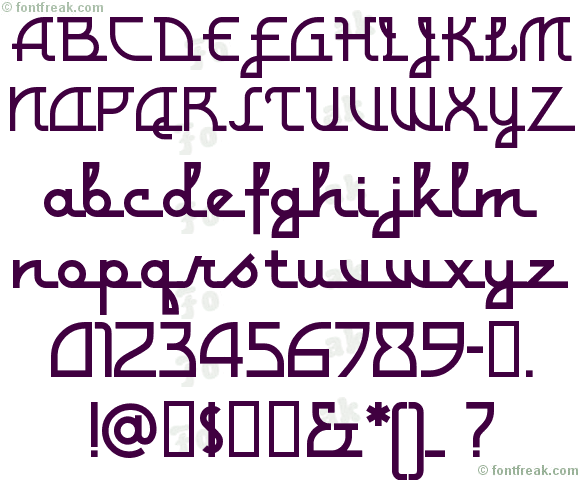
About Monterey Popsicle
Monterey Popsicle, designed by Nick Curtis in 2002, is a captivating display font that embodies a playful and whimsical character, perfect for various creative applications. As a decorative typeface, it features unique strokes that evoke a sense of fun and nostalgia. The font showcases a medium stroke weight with an engaging contrast that draws attention while remaining legible. Its rounded edges and quirky letterforms add a friendly touch, making it suitable for projects that require a lighthearted aesthetic. The spacing is well-balanced, ensuring that the letters maintain clarity while allowing for a lively flow.
Monterey Popsicle is ideal for a range of use cases, including vibrant wedding invitations that call for a touch of charm, eye-catching movie posters that aim to capture the viewer's attention, and delightful restaurant menus that enhance the dining experience. This font can also be utilized effectively in children's book covers or promotional materials for family-friendly events, as its design naturally resonates with younger audiences. Its versatility makes it a go-to choice for graphic designers, small business owners, and content creators looking to inject personality into their work.